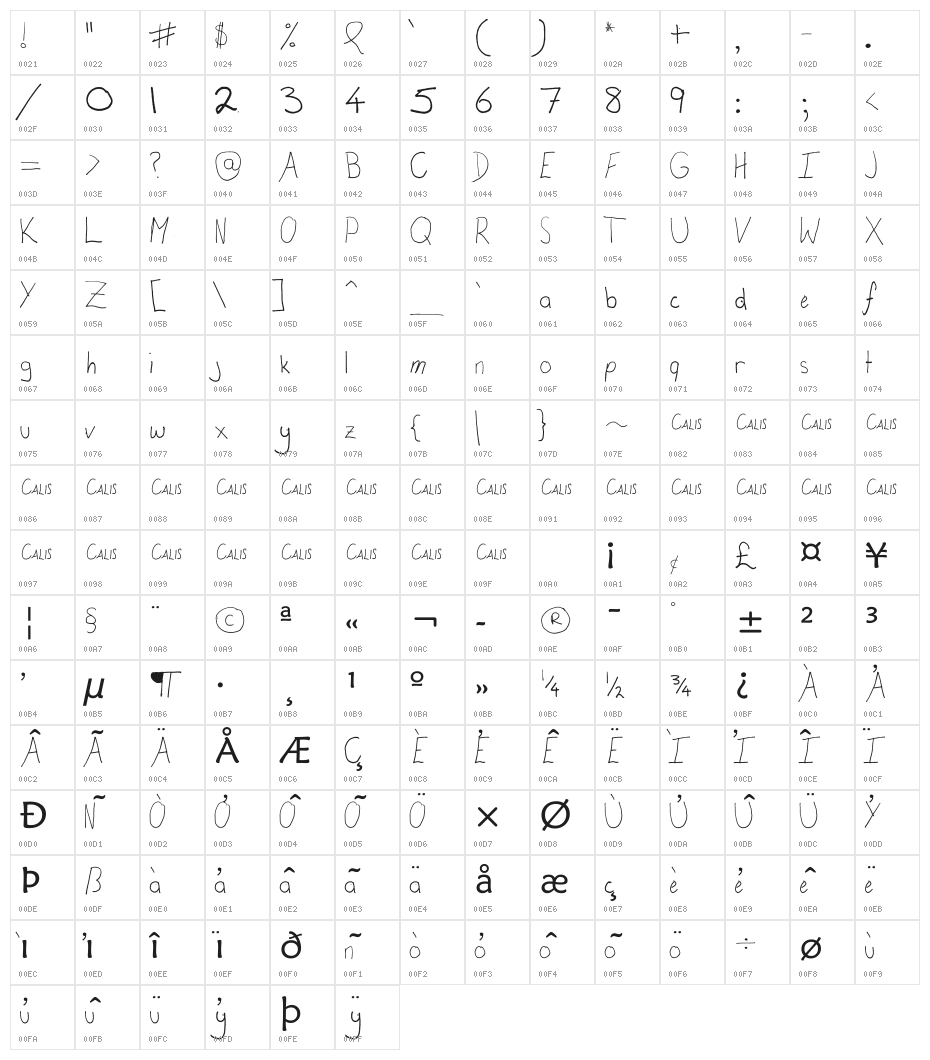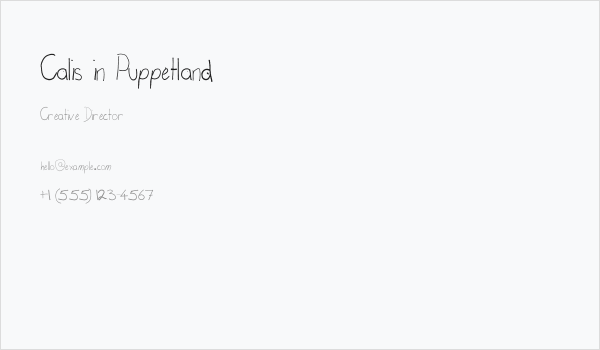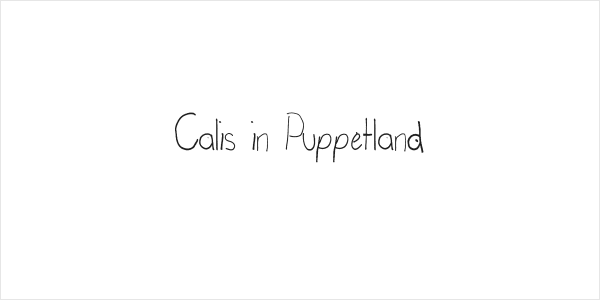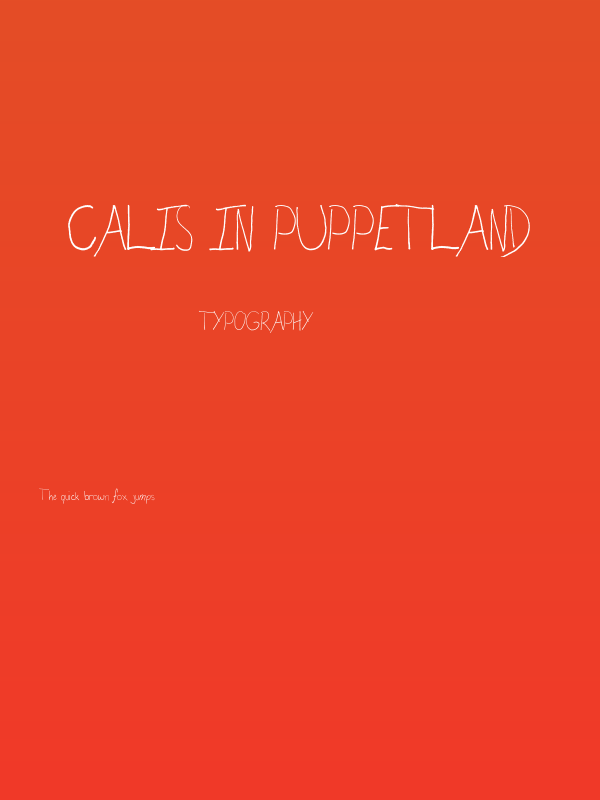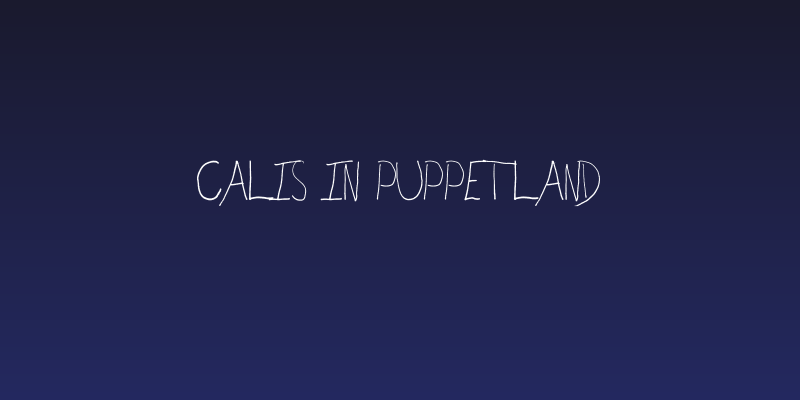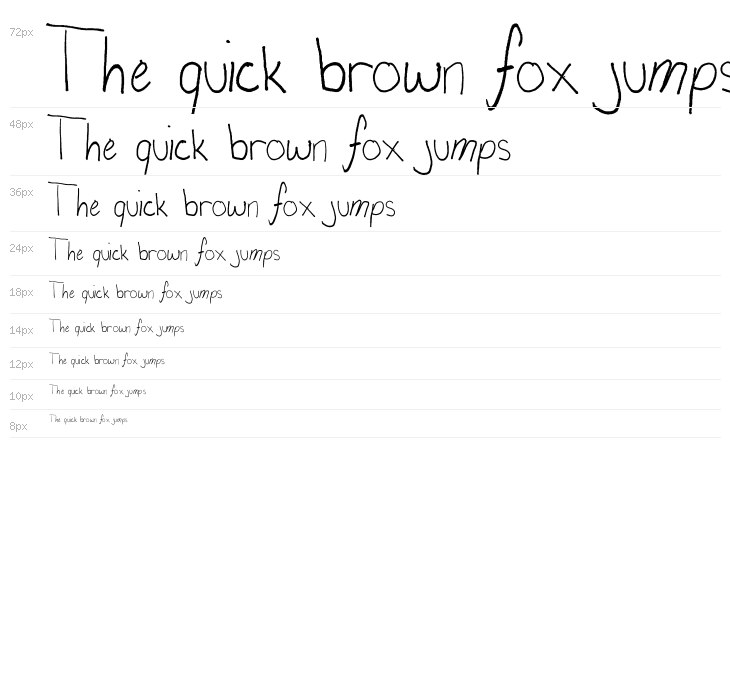
Calis in Puppetland Font
Calis in Puppetland Description
This font exudes a playful and whimsical charm, characterized by its irregular and hand-drawn appearance. The letters are unevenly shaped, with varying stroke thickness that adds a dynamic and lively feel. The uppercase characters are tall and slightly narrow, while the lowercase letters maintain a consistent style, enhancing the font's quirky personality. The numbers are bold and distinct, complementing the overall aesthetic. Special characters are creatively designed, adding to the font's unique appeal. This font is perfect for projects that require a touch of creativity and fun.
Use CaseHeadlines, Logos, Creative projects
Proposed ProjectsIdeal for children's books, playful branding, creative posters, and artistic invitations.